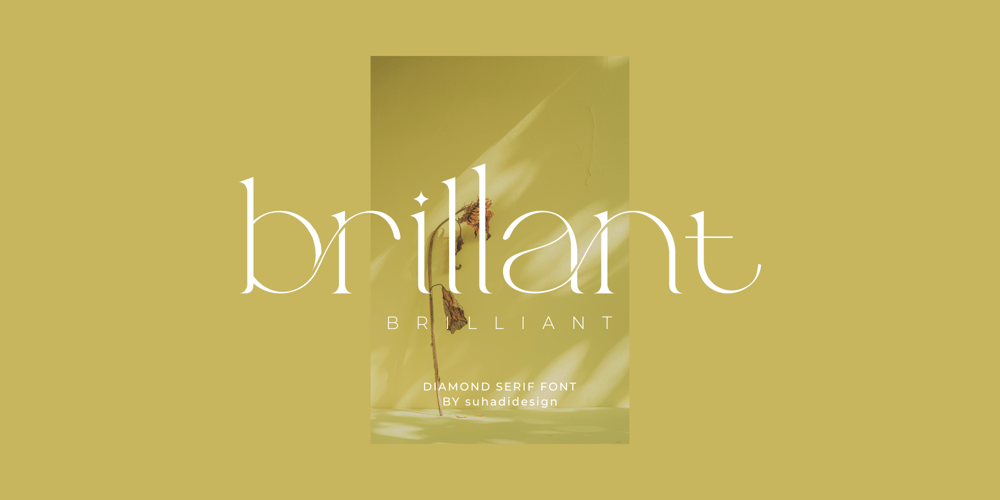
Brillant Brilliant Font Family was designed by ahmad suhadi and published by suhadidesign. Brillant Brilliant contains 1 styles and family package options. Brillant – Stylish Ligature SerifHi ladies and gentlemen! The latest stylish modern font has arrived which is a font that many ladies and gentlemen are looking at. Namely the Brillant font. The Brillant font is a stylish and modern serif font. with a stylish modern style, it has become a market favorite. We keep this font looking elegant, classy, stylish. Brillant Font is a great choice for beauty, magazines, design, books, publications, brand names, business cards, social media, classy design, newspaper, branding and other projects. Brillant Font is here to improve the quality of your designs.Stay tuned with us for more updates on font creation :)Feature:• Uppercase • Lowercase • Alternates • Ligatures • Multilingual Support • Numerical • Punctuation